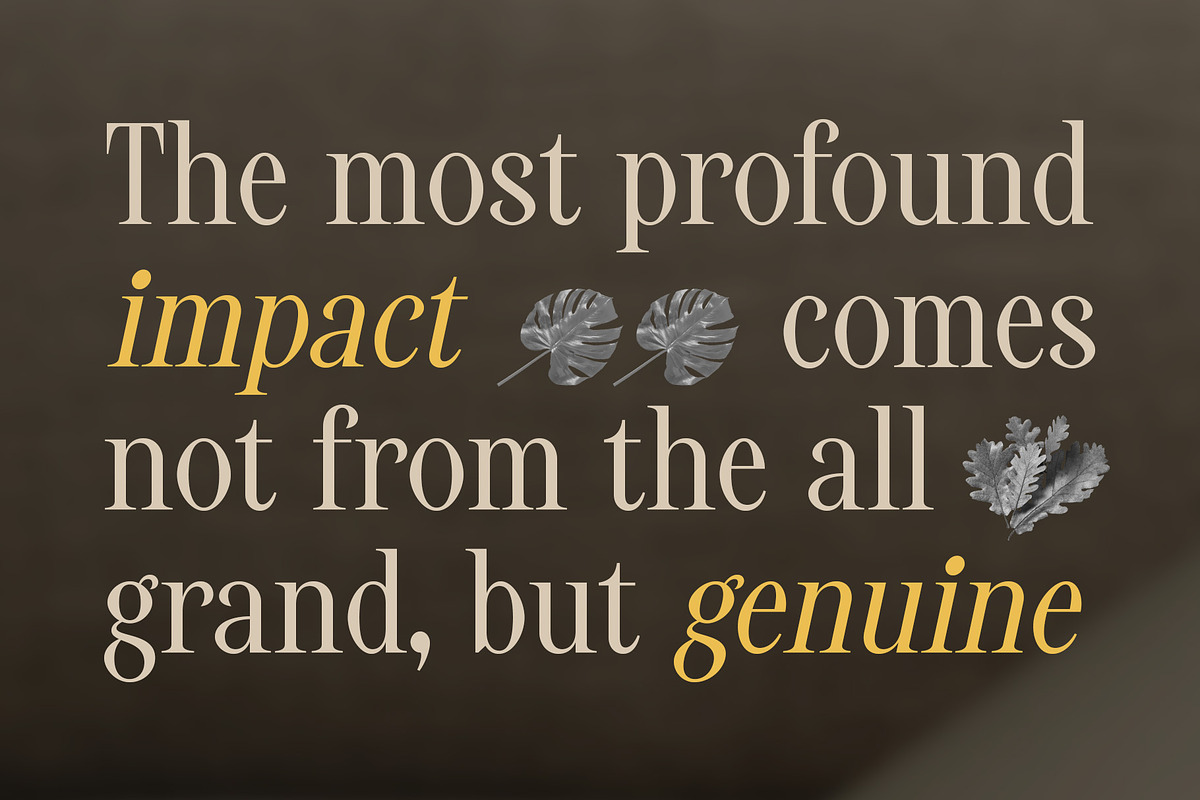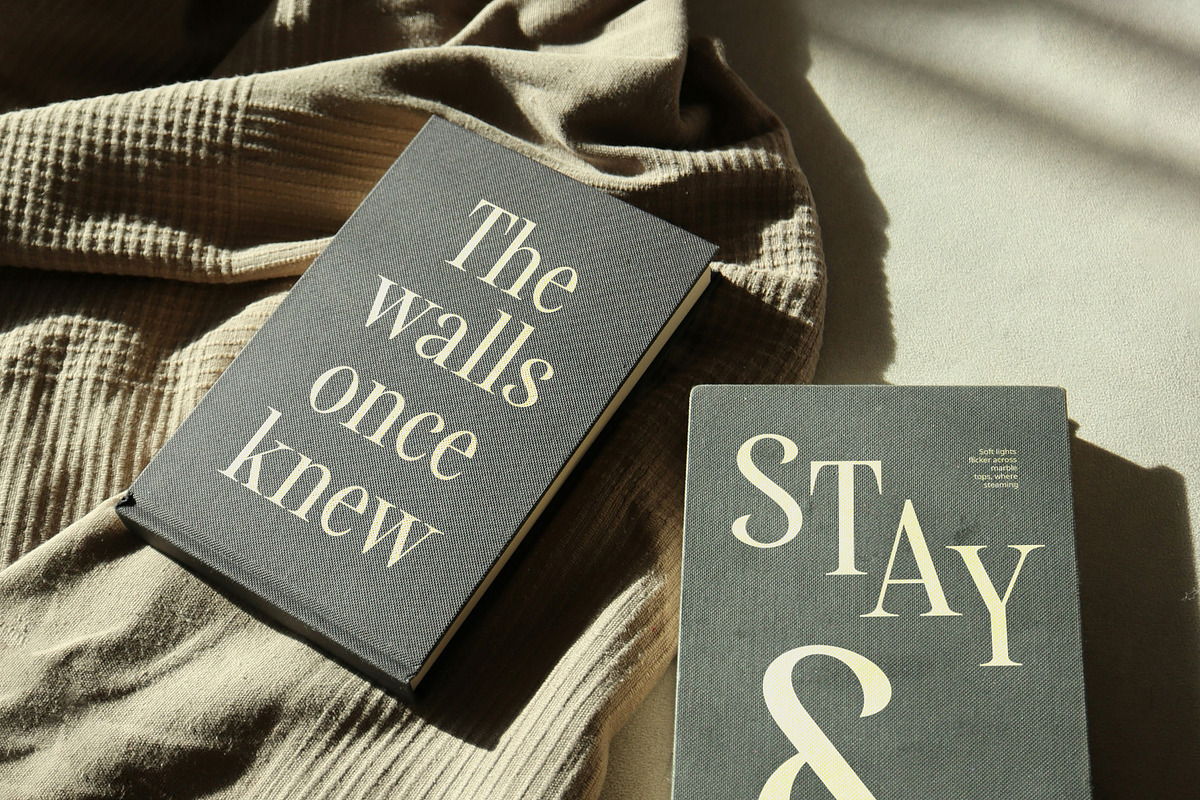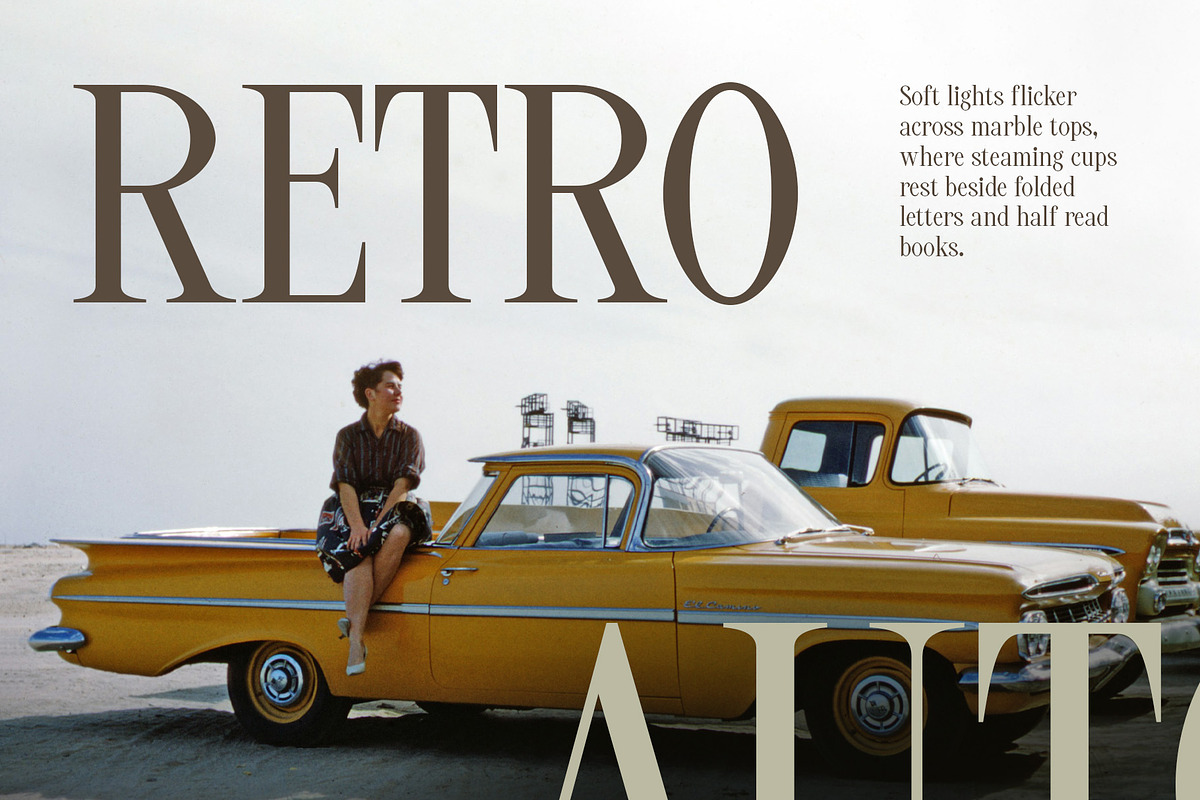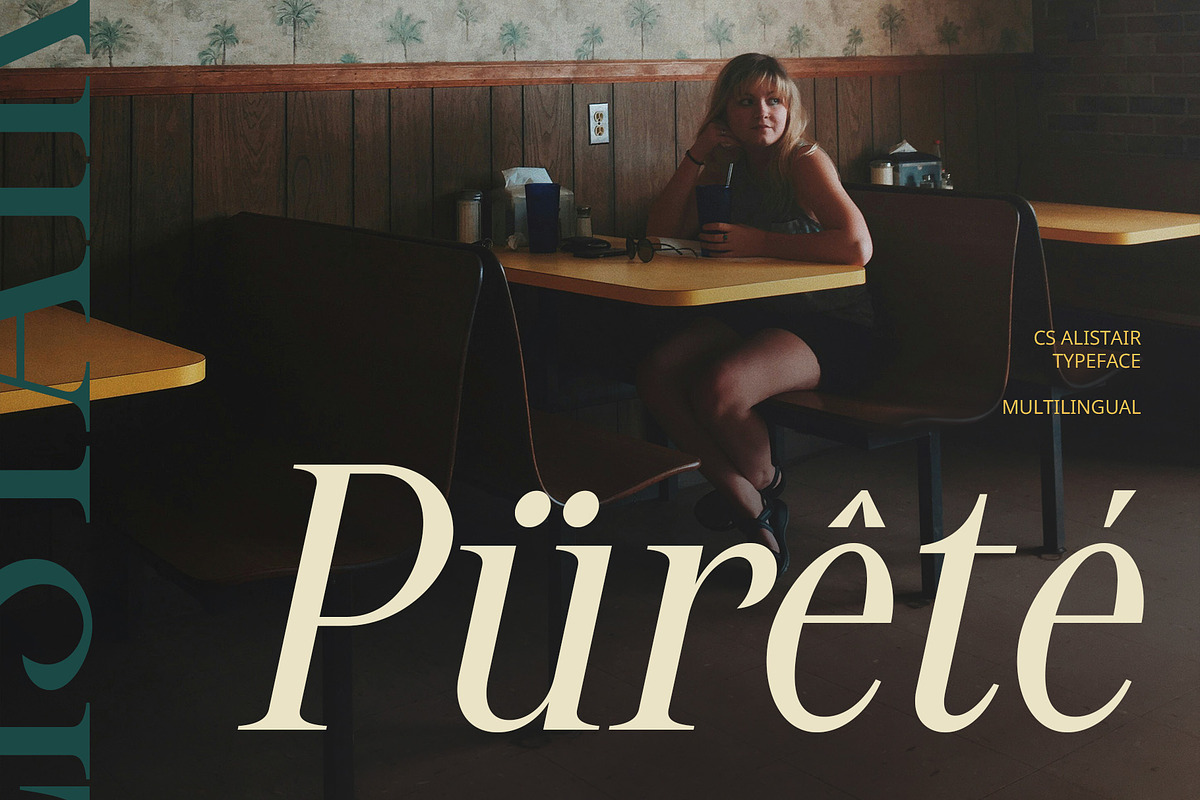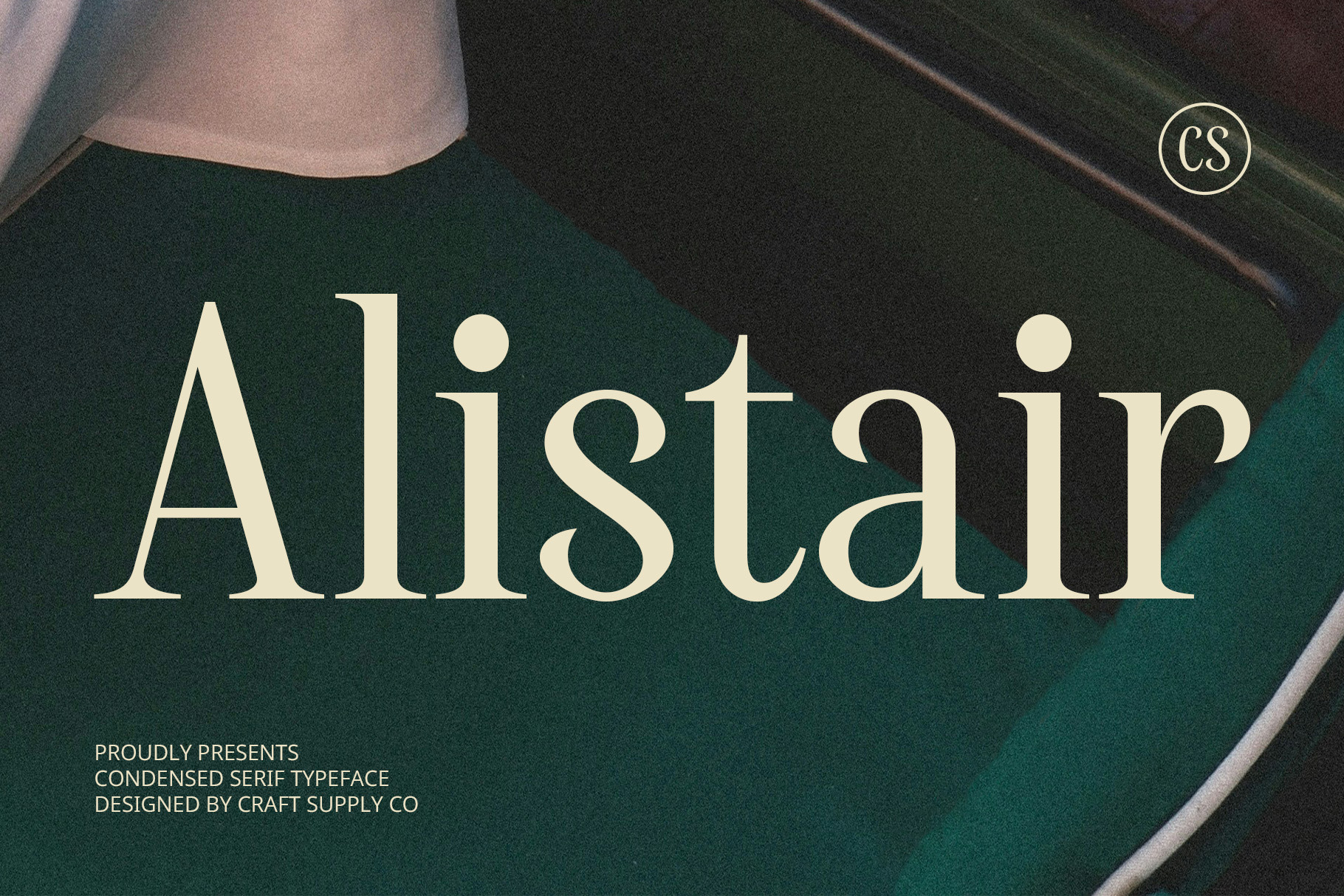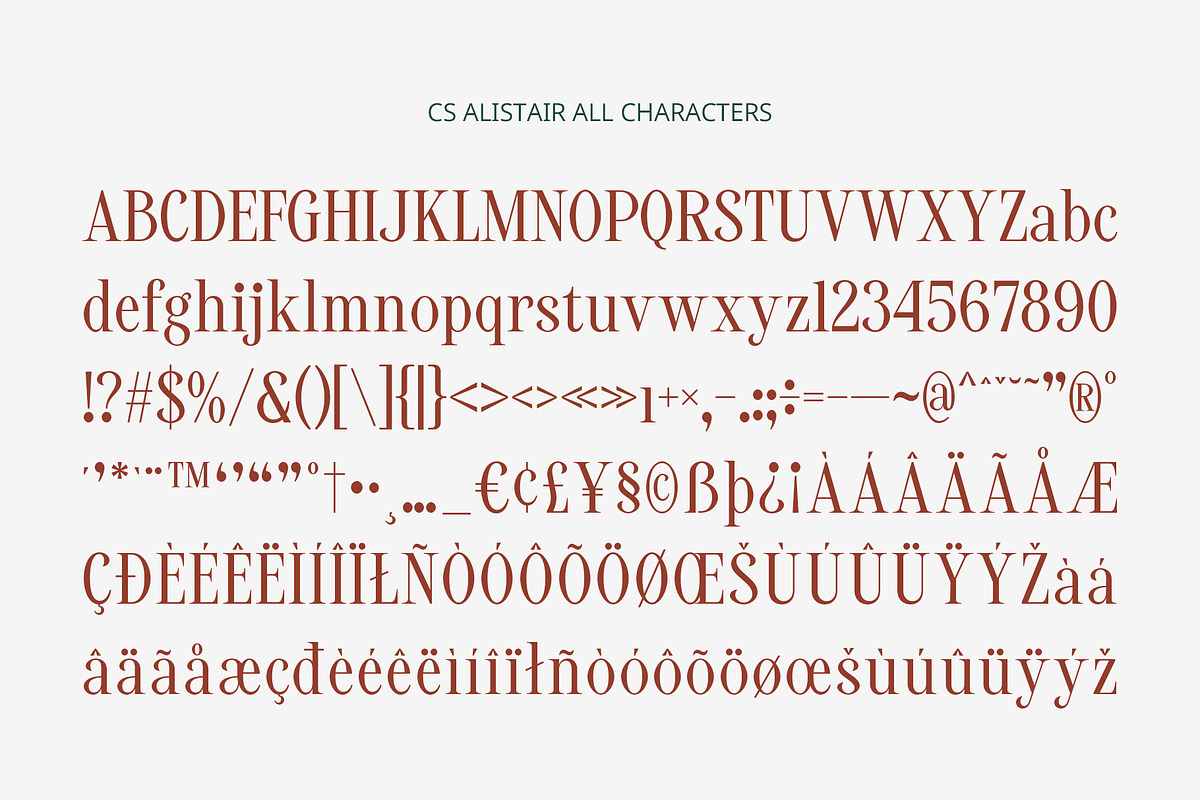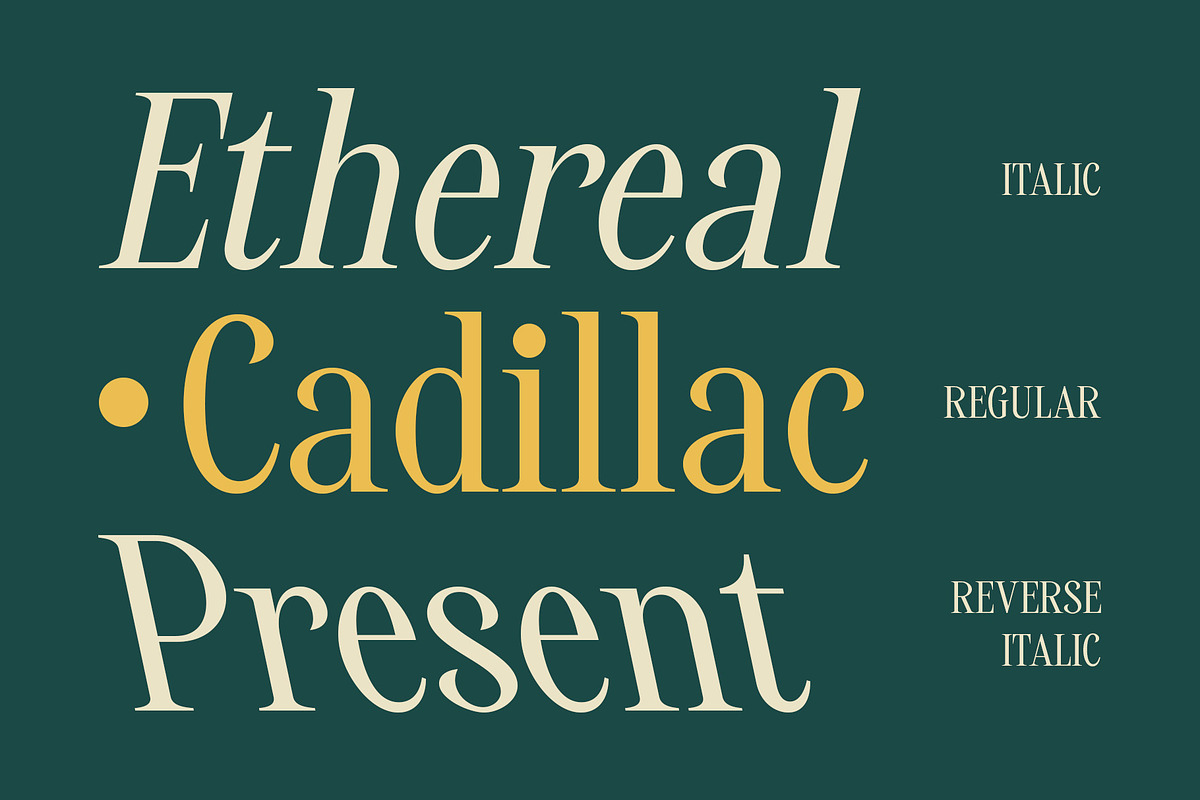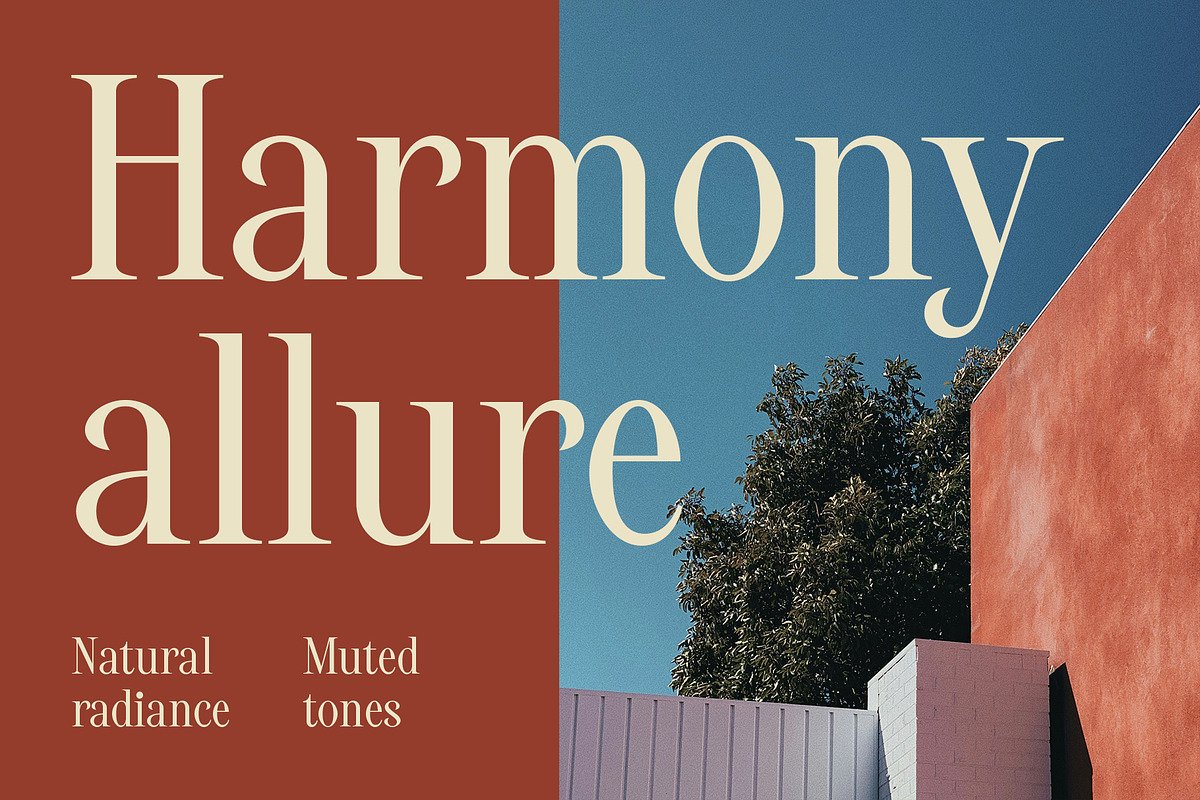
CS Alistair – Classic Font
CS Alistair – Classic Font: Timeless Elegance with a Modern Edge
Clean and Contemporary Serif Design CS Alistair is a modern serif font that embraces clean structure and contemporary elegance. Its sharp, well-balanced lines create a crisp and polished look, making it ideal for sophisticated designs that value clarity, beauty, and professionalism.
Classic Elegance in Every Detail While rooted in modern aesthetics, CS Alistair retains a timeless serif charm. The harmonious balance between slender stems and confident serifs evokes a classic sensibility—perfect for high-end applications that demand both tradition and innovation.
Versatile for Luxurious Visual Projects This font adapts seamlessly across various design contexts, from luxury branding and editorial layouts to product packaging and fashion identities. Its elegant presence enhances visual storytelling and adds refinement to every project.
Ideal for Modern Brands with Timeless Appeal Whether you’re crafting a logo, headline, or sophisticated marketing materials, CS Alistair offers a professional yet graceful type solution. It’s a go-to choice for designers seeking a modern serif font that delivers timeless elegance with contemporary precision. CS Alistair is perfect for design projects that aim to convey a sense of modern luxury and timeless quality. Its elegant serif form is well-suited for high-end branding, luxury magazines, sophisticated advertising, and minimalist visual identities. This font effortlessly communicates professionalism, elegance, and aesthetic confidence.
- CS Alistair Regular
- CS Alistair Italic
- CS Alistair Reverse Italic